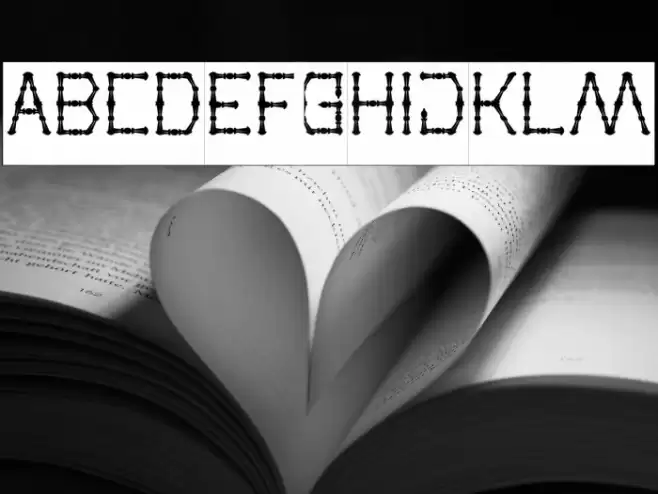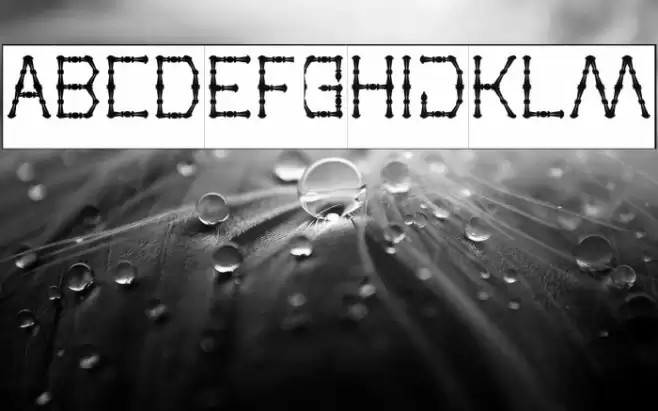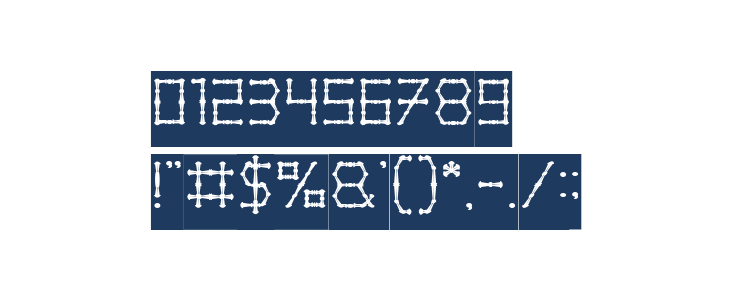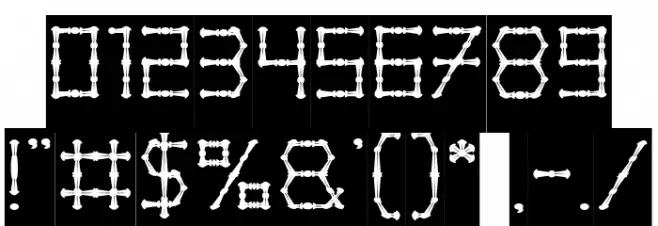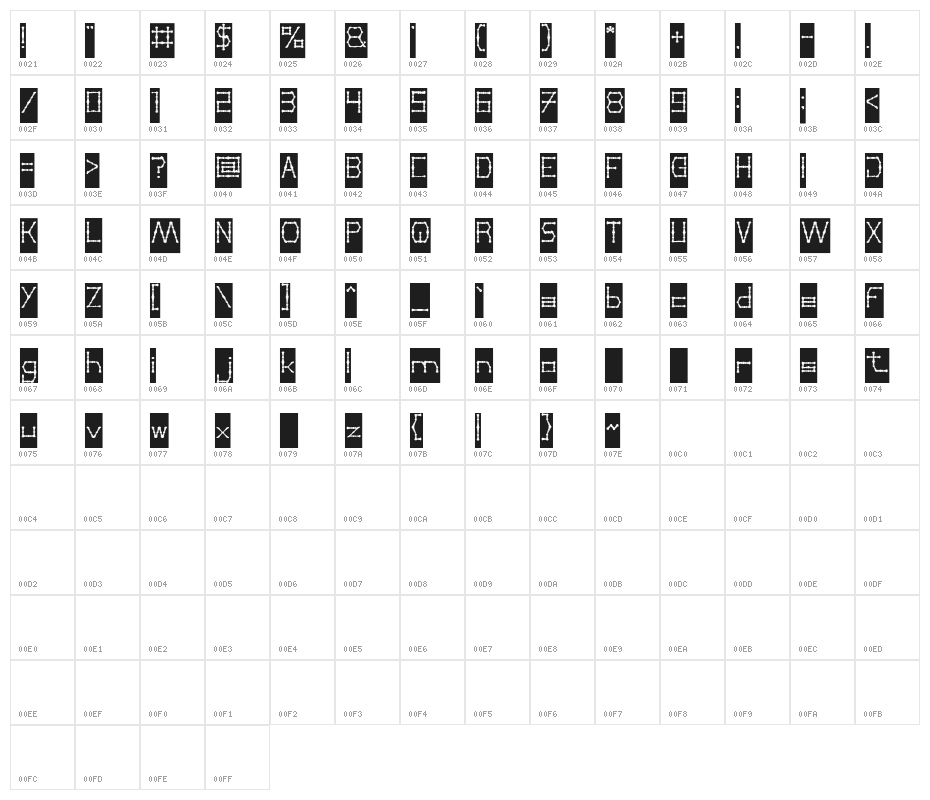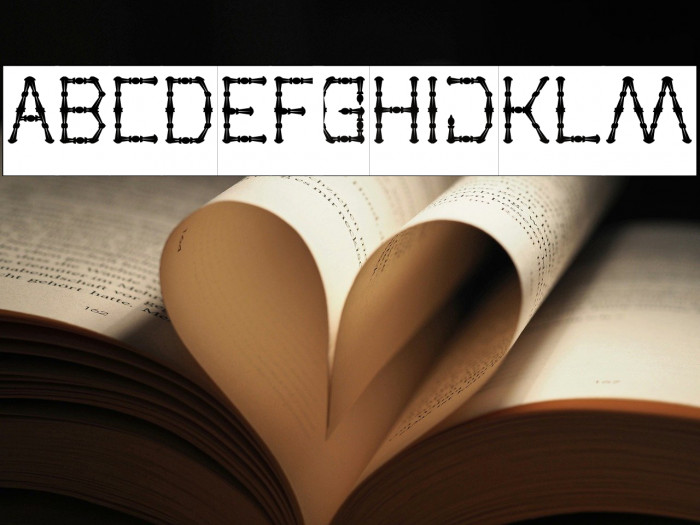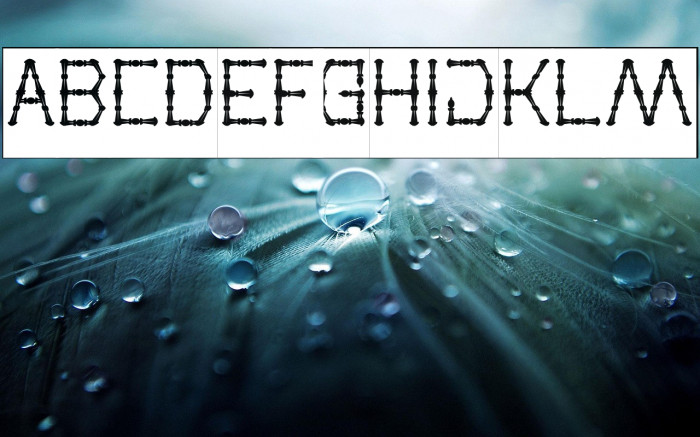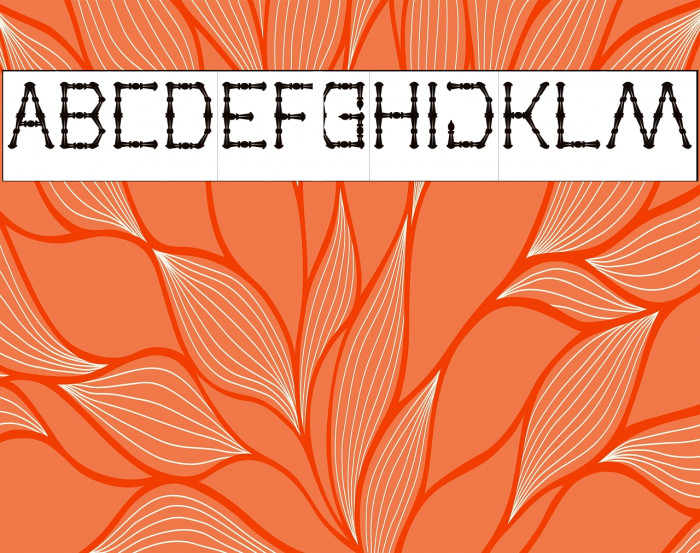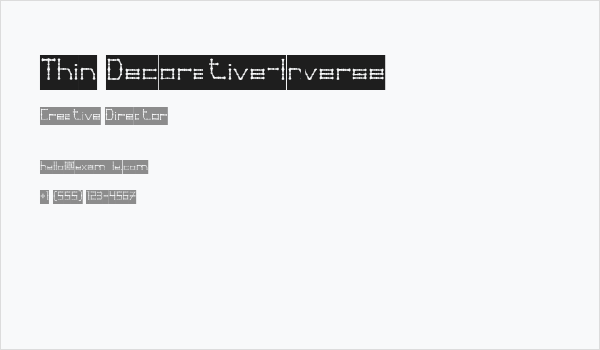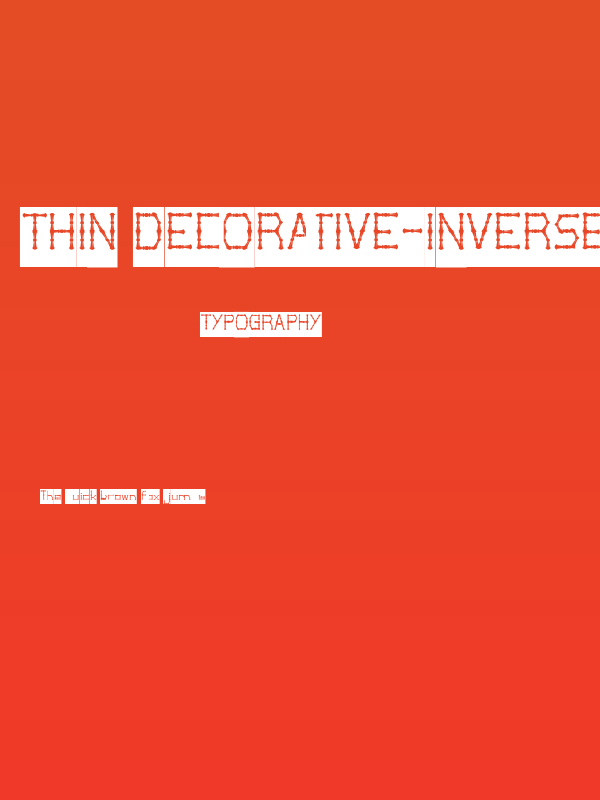
Thin Decorative-Inverse Font
Thin Decorative-Inverse Description
This font features a unique and decorative design, characterized by its thin, skeletal structure that resembles interconnected bones or joints. The letters are formed with a series of small, rounded nodes connected by thin lines, creating a visually intriguing and artistic appearance. The uppercase and lowercase letters maintain a consistent style, with a playful yet slightly eerie aesthetic. The numbers and special characters follow the same design principles, ensuring a cohesive look across all glyphs. This font stands out due to its unconventional and creative approach, making it suitable for projects that require a distinctive and eye-catching typeface.
A thin, decorative font with a skeletal, interconnected design from Uncategorized fonts.
- Font: Thin Decorative-Inverse
- Proposed Projects: Ideal for Halloween-themed designs, artistic posters, unique branding projects, and creative invitations.
- Weight: Light
Thin Decorative-Inverse UPPERCASE